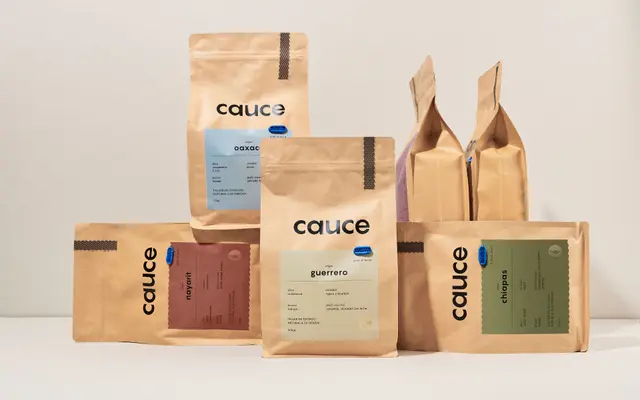
PP Pangram Sans
Pangram Foundry · Mat Desjardins, Valerio Monopoli · 2021
PP Pangram Sans specimen from Pangram Foundry
A 144-style geometric sans by Pangram with six widths and a variable slant axis from Reclined to Italic.
Pangram Sans is a geometric workhorse by Mat Desjardins and Valerio Monopoli, built across six widths and 24 styles each for 144 styles in total. A fully variable slant axis runs from Reclined to Italic, and Cyrillic support is included. The width range, from Compressed up to Normal, covers everything from masthead headlines to text setting in one system.